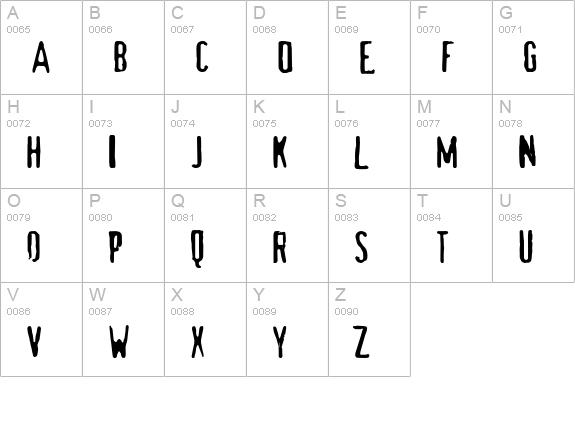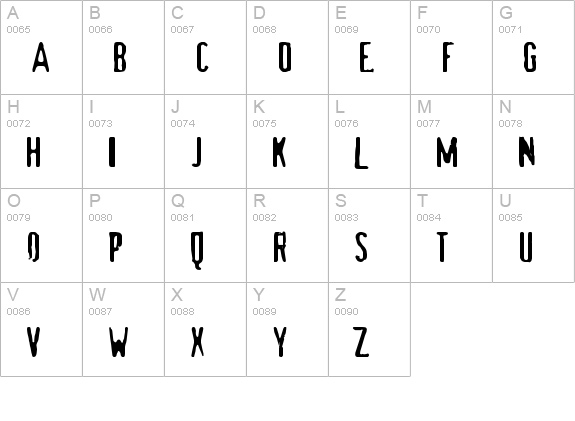
Maldita Font Details
Introducing Maldita, a captivating and versatile font designed to make a bold statement in any project. With its edgy and modern design, Maldita effortlessly combines sophistication with a touch of rebelliousness, making it perfect for a wide range of creative endeavors. Crafted with meticulous attention to detail, Maldita boasts a unique blend of elegant curves and sharp angles, creating a visually striking aesthetic that demands attention. Its sleek and stylish appearance lends itself beautifully to branding, logo design, social media graphics, and so much more. But what makes Maldita truly exceptional is its versatility. Whether you're aiming for a sleek and professional look or a more daring and unconventional vibe, this font can effortlessly adapt to suit your needs. Its wide range of weights and styles allows you to explore various typographic combinations, giving you endless possibilities for creative expression. And the best part? Maldita is available to download for free at FontsMarket.com. That's right, this exceptional font can be yours without spending a dime. With just a few clicks, you can unleash the power of Maldita and elevate your designs to new heights. So why wait? Discover the captivating allure of Maldita and take your projects to the next level. Download this remarkable font today at FontsMarket.com and embark on a journey of creativity like never before.